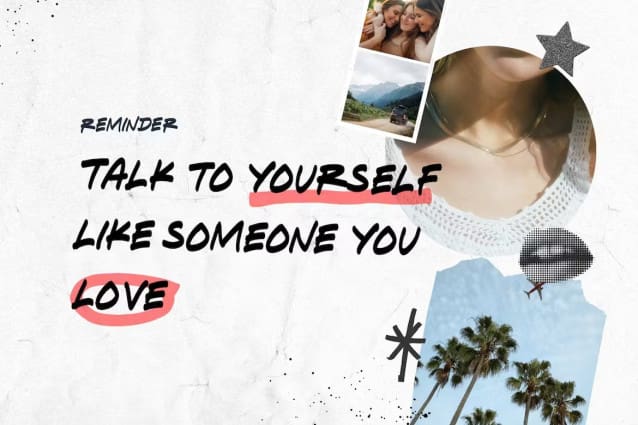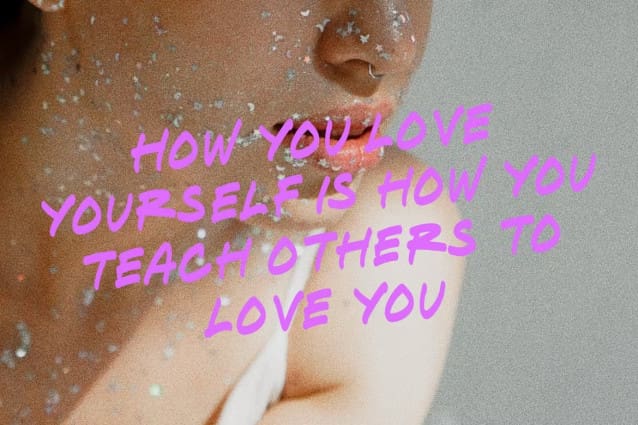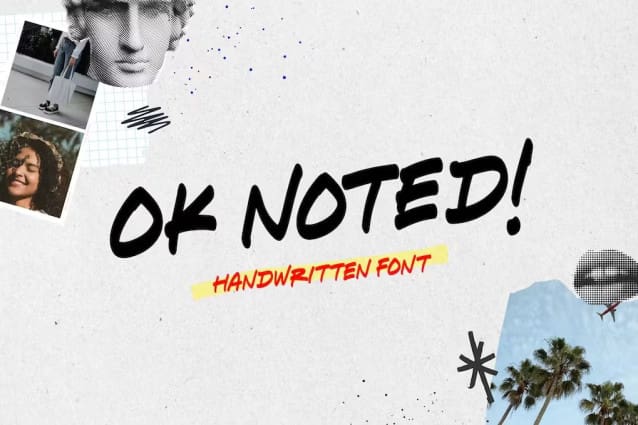
Ok Noted Font
Ok Noted Font: Emphasizing the beauty of handwritten aesthetics, OkNoted adds a personal touch to any design. The carefully crafted strokes and fluid curves evoke a sense of elegance and grace, making each letter a work of art.
Designed specifically for display purposes, OkNoted shines on social media kits, headlines, logos, and branding materials. Its bold and distinct appearance commands attention, ensuring your message stands out from the crowd.
Incorporating Ok Noted into your designs breathes life into your concepts, infusing them with a contemporary edge. Its versatility allows for seamless integration into various digital creative projects.